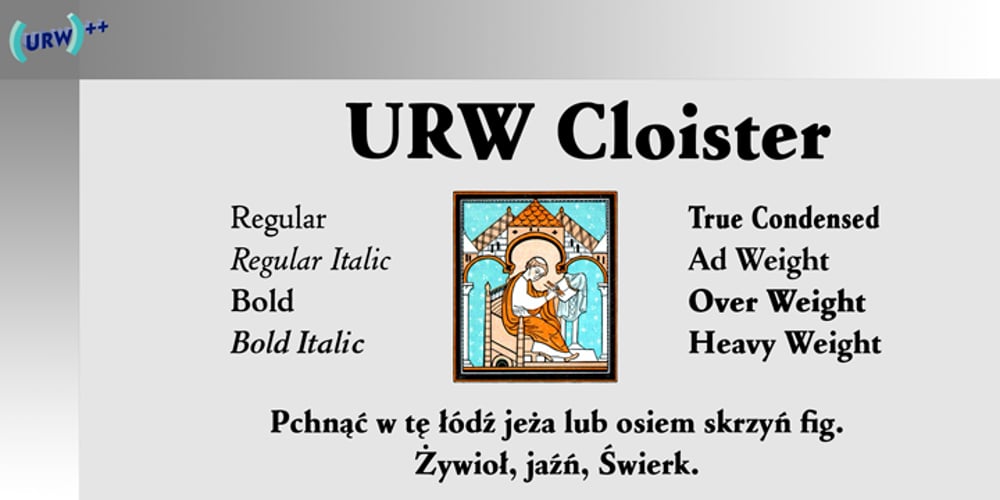
Cloister Font Family was designed by Phil Martin and published by URW Type Foundry. Cloister contains 8 styles and family package options. Cloister was designed in 1914 by Morris F. Benton. The characters of the Cloister font family have a small body and are suitable for texts where economy of space is desired.